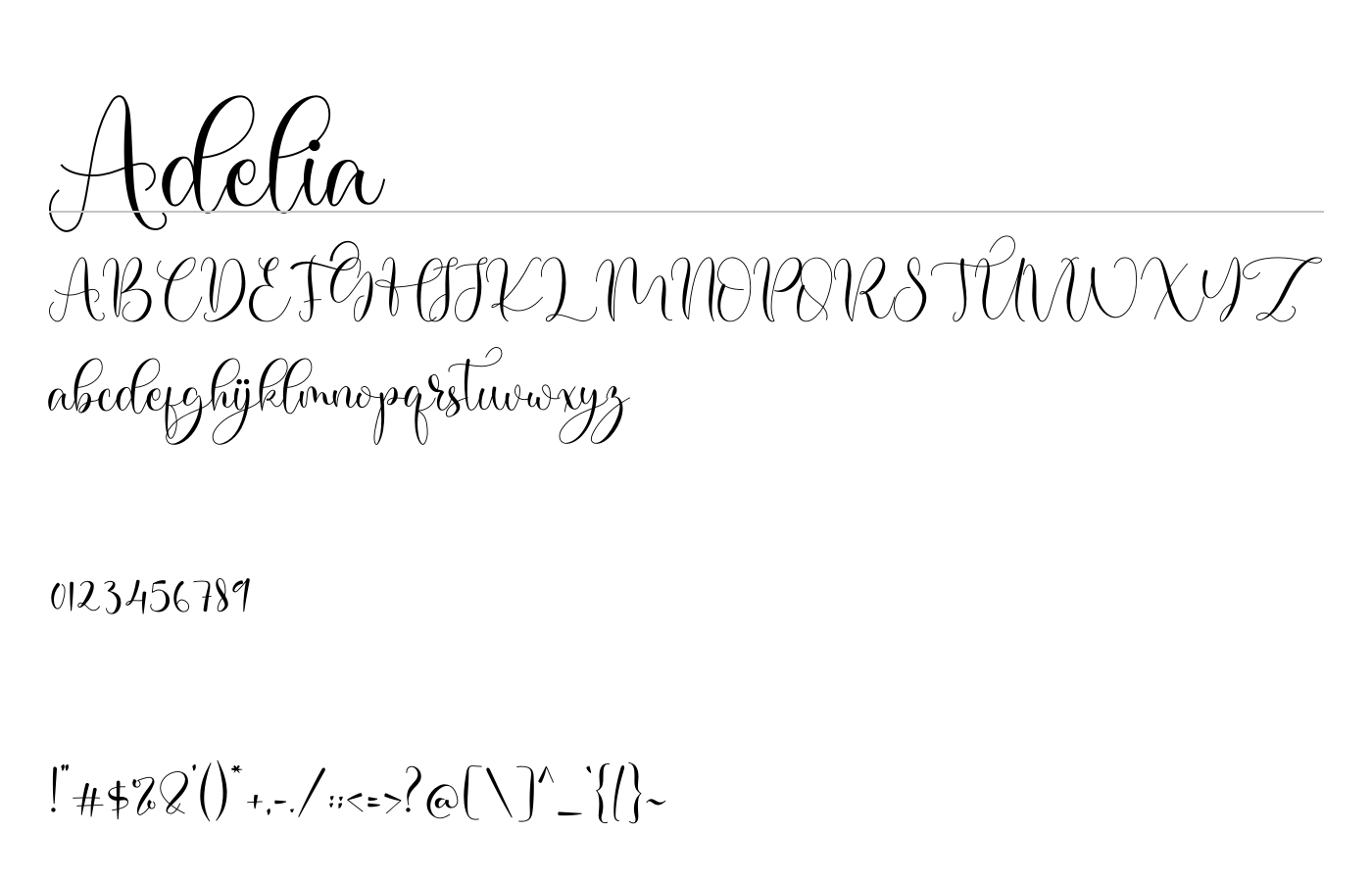
Adelia is a delicate and elegant script font with fine, flowing strokes and a hand-drawn feel that conveys sophistication and charm. Its thin, graceful lines and ornate letterforms make it ideal for luxury branding, invitations, and feminine designs where a romantic or refined touch is desired. This font works beautifully in headlines and logos where a stylish, artistic impression is key.
Adelia Font
About Adelia Font